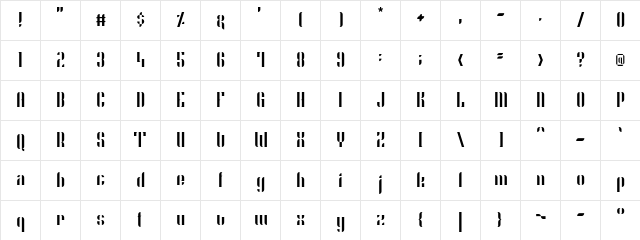
O'line Regular Regular
| Designer | Erry Nugraha |
Design Context for O'line Regular Typeface
O'line Regular is a composed and adaptable typeface that performs quietly and consistently across a wide range of design contexts.